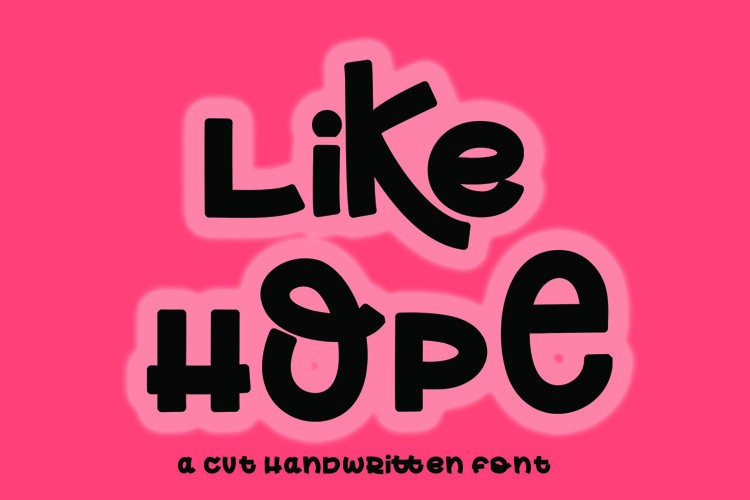
Beautiful Handwriting
Like Hope is a casual handwritten font that radiates warmth and authenticity. Featuring smooth strokes, relaxed curves, and naturally balanced letterforms, it captures the charm of everyday handwriting with a clean and approachable style.